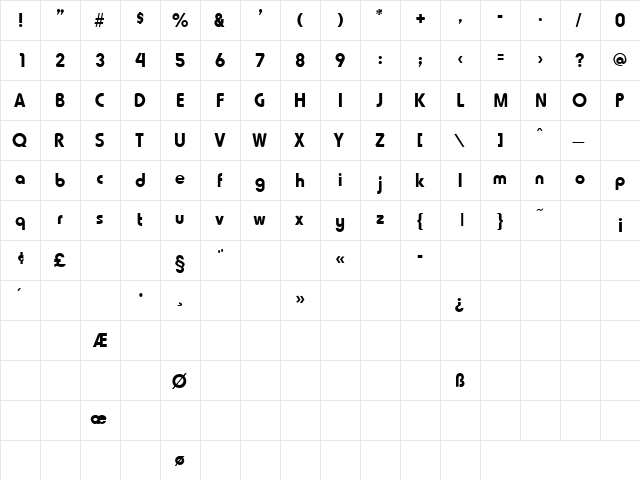
TrioSSK Regular
Design Context for TrioSSK Typeface
TrioSSK is a composed and adaptable typeface that performs quietly and consistently across a wide range of design contexts.